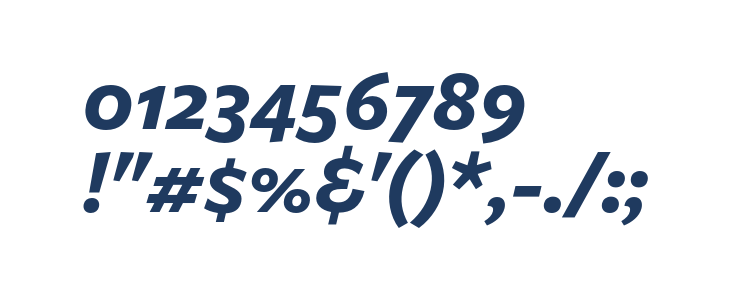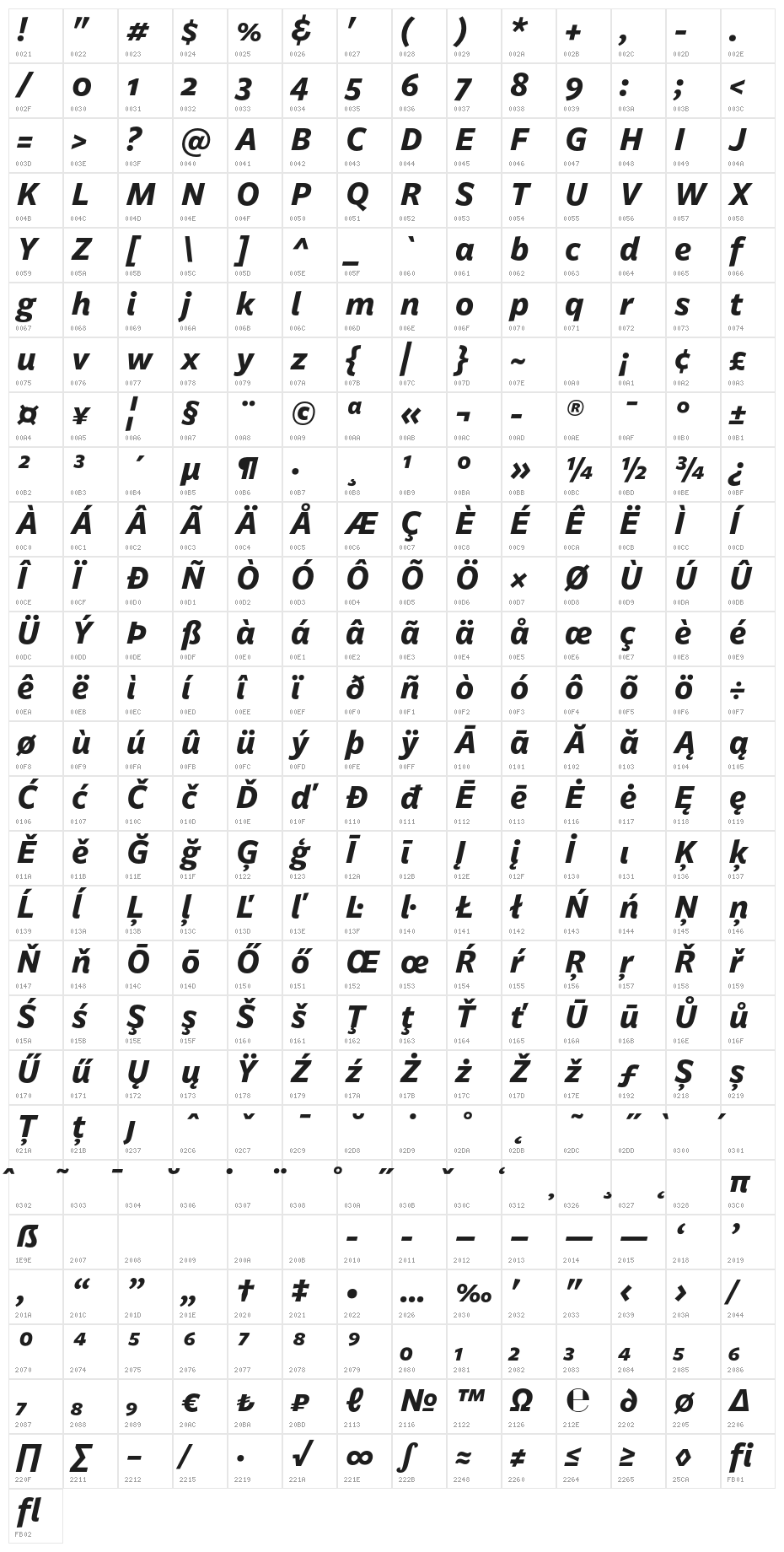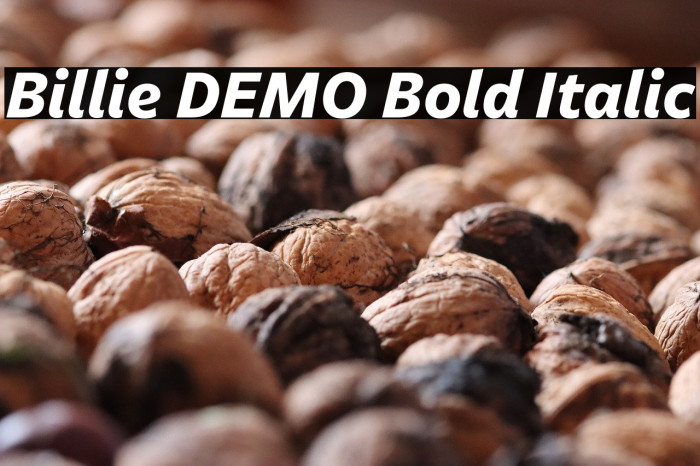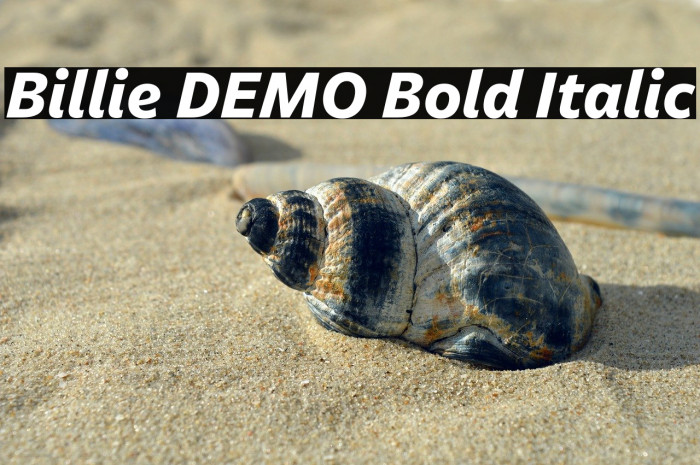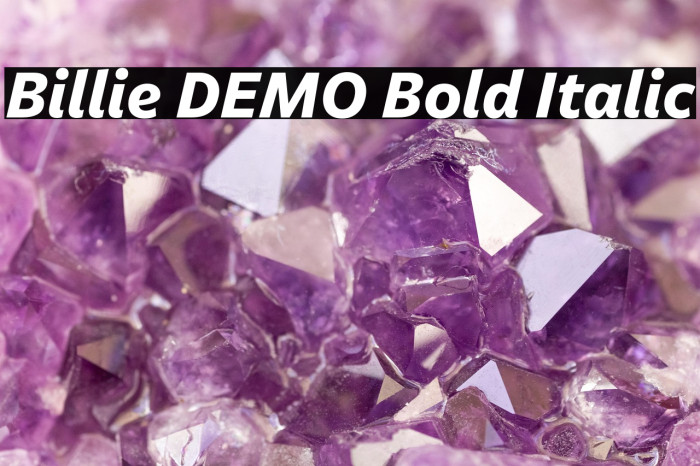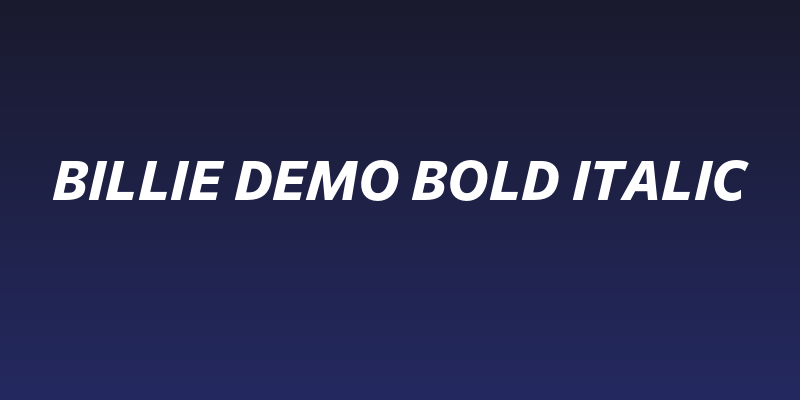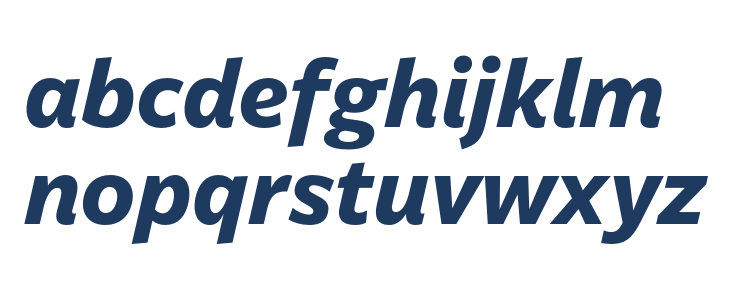
Billie DEMO Bold Italic Font
Billie DEMO Bold Italic Description
This font features a bold and italicized style, offering a strong and dynamic presence. The uppercase and lowercase letters are designed with a slight slant, enhancing the italic effect. The characters are well-defined with a consistent stroke weight, providing a clean and modern appearance. The numerals and special characters maintain the same boldness, ensuring uniformity across all glyphs. This font is versatile, suitable for various design needs where emphasis and readability are essential.